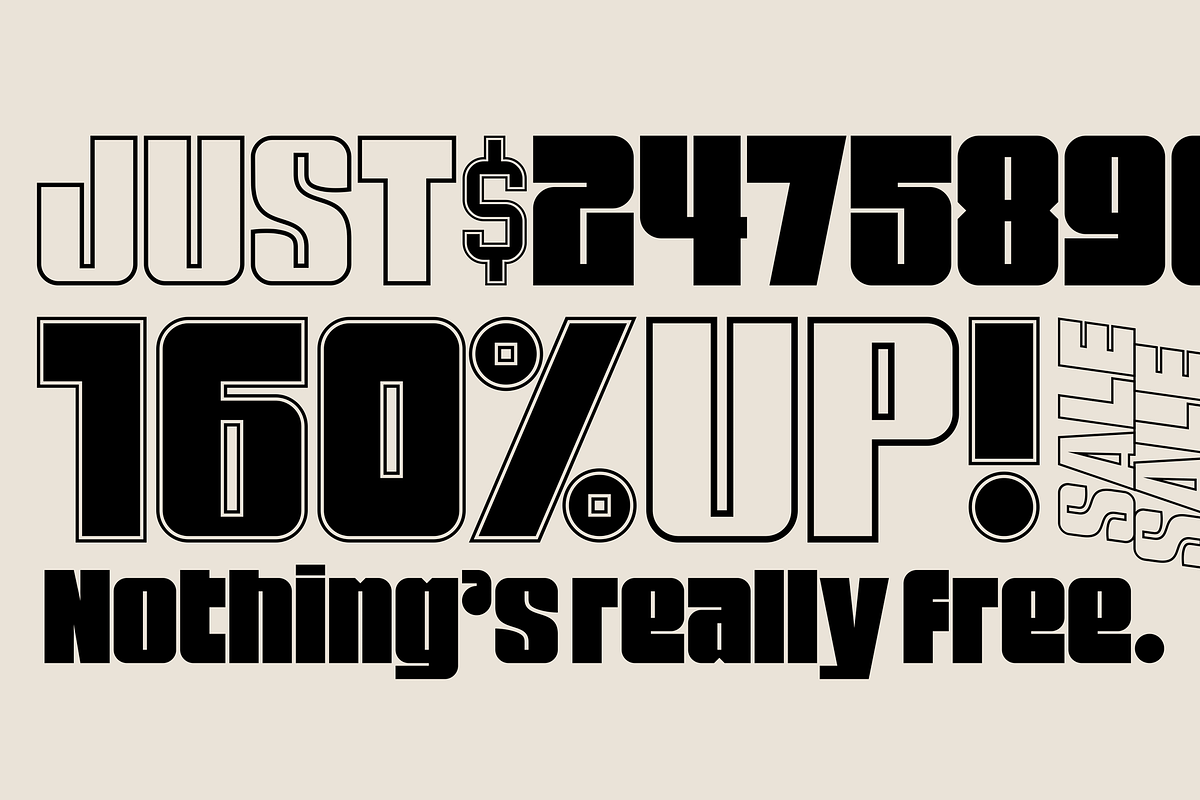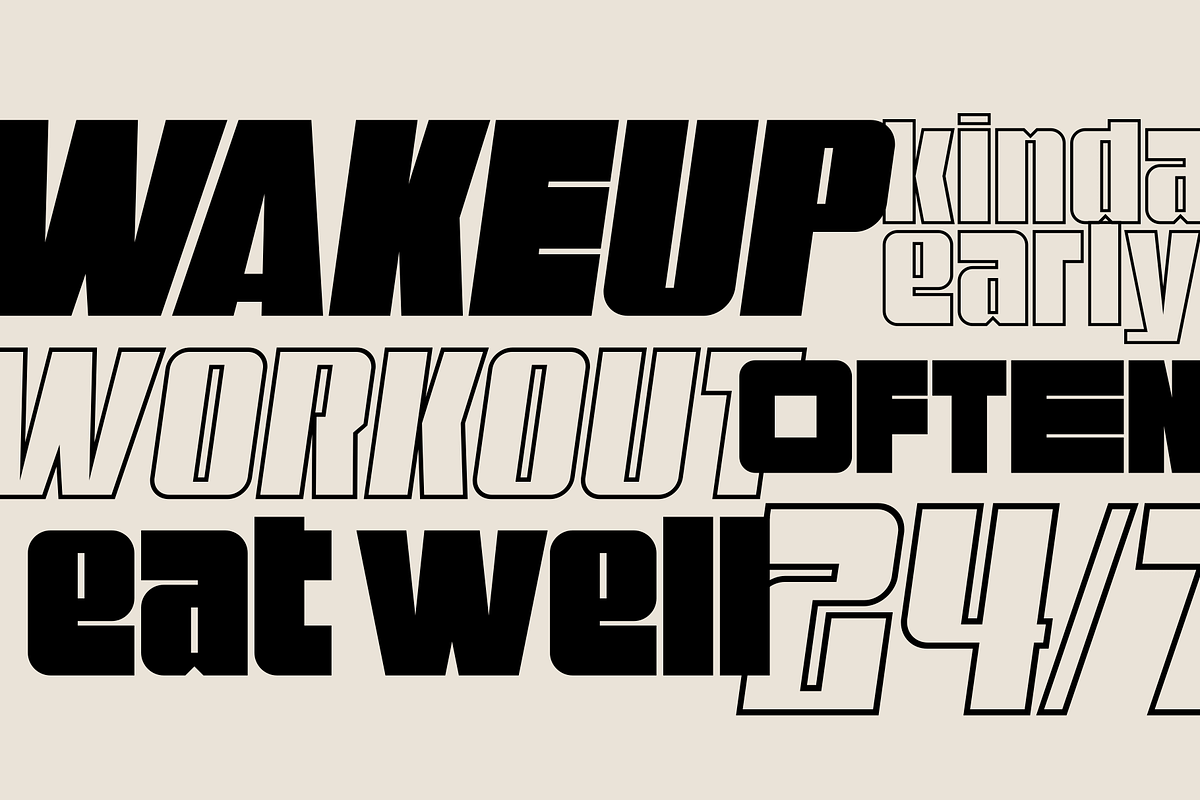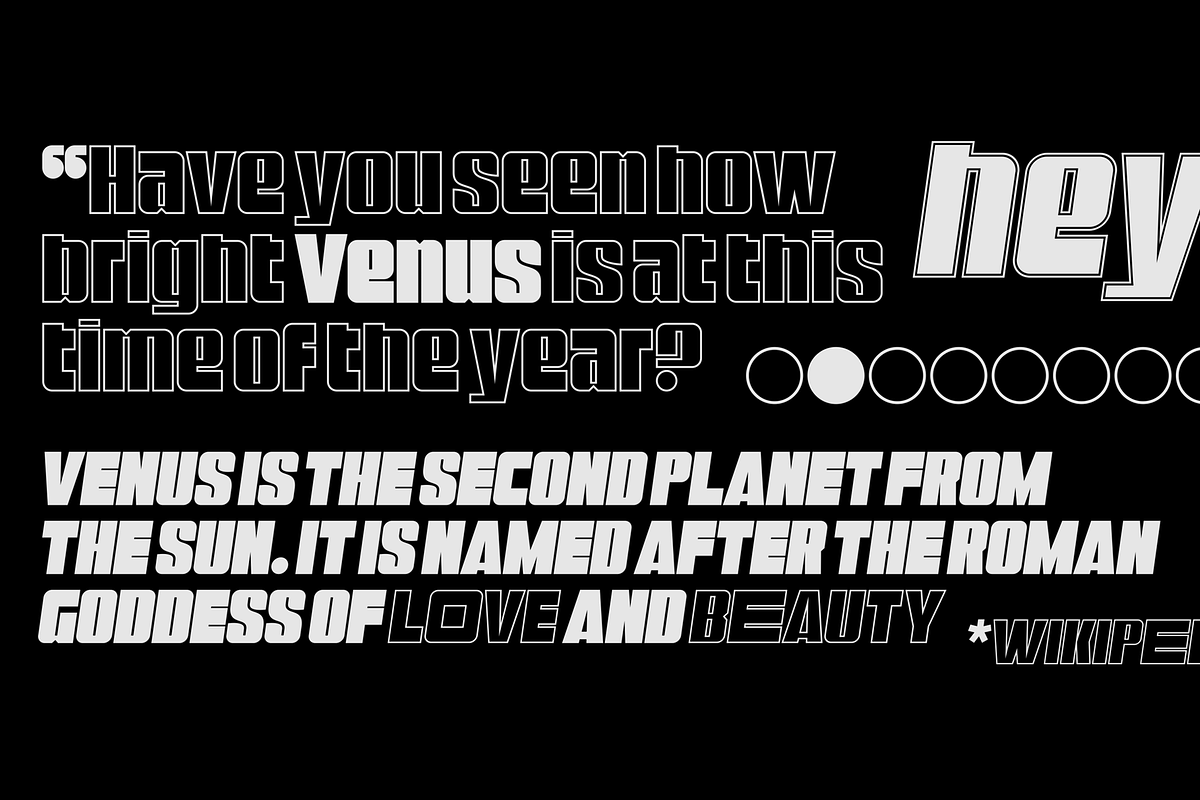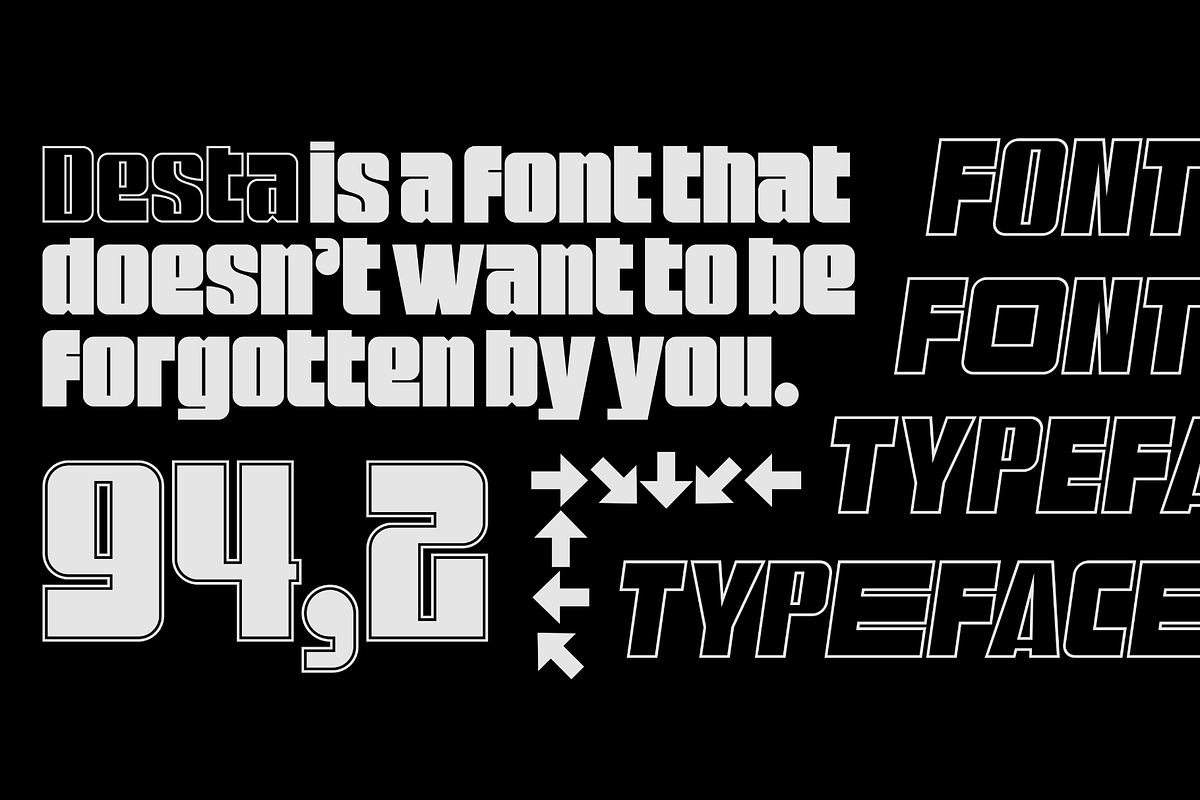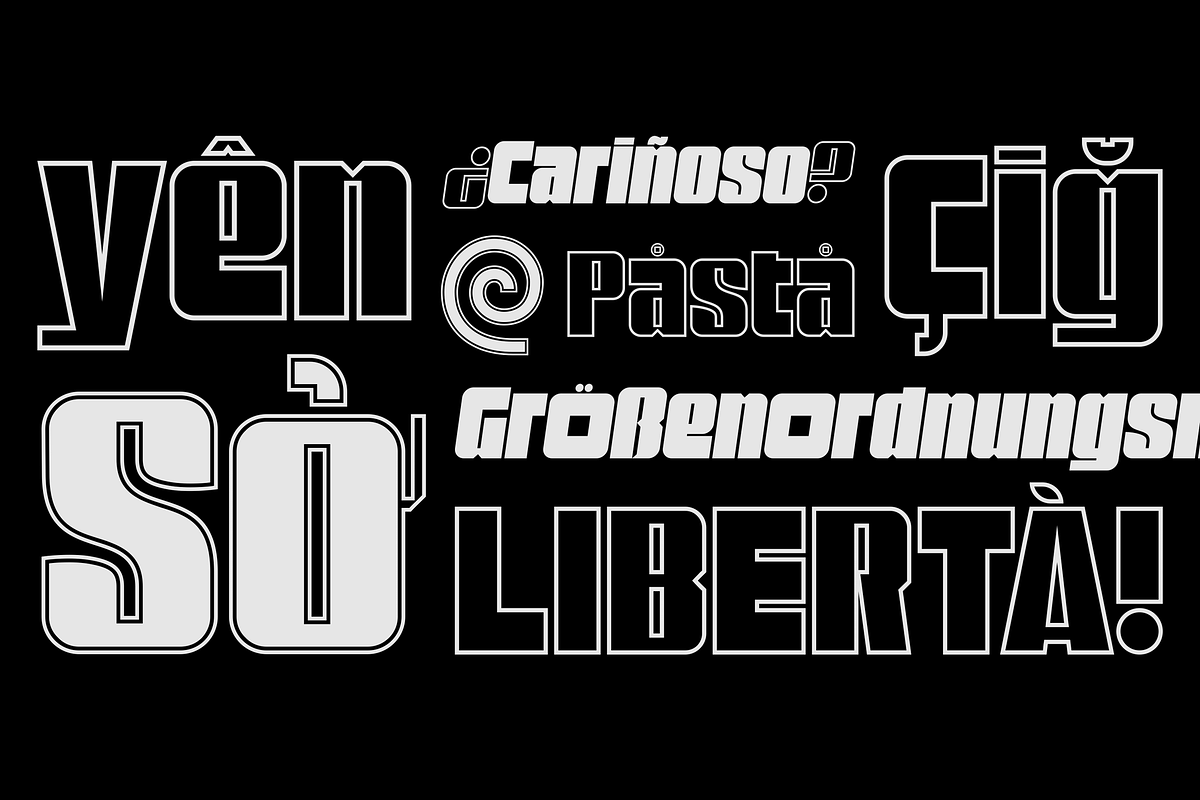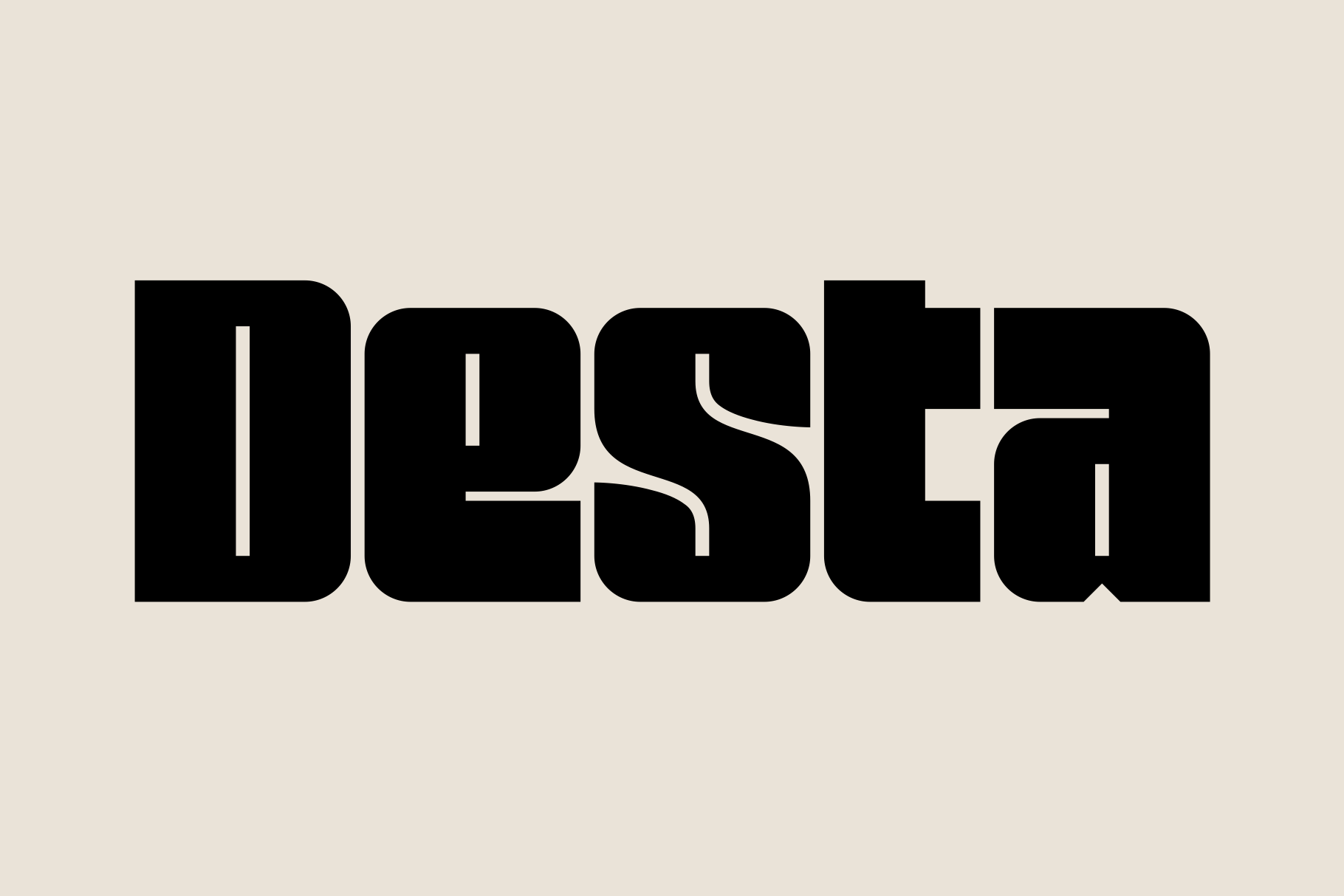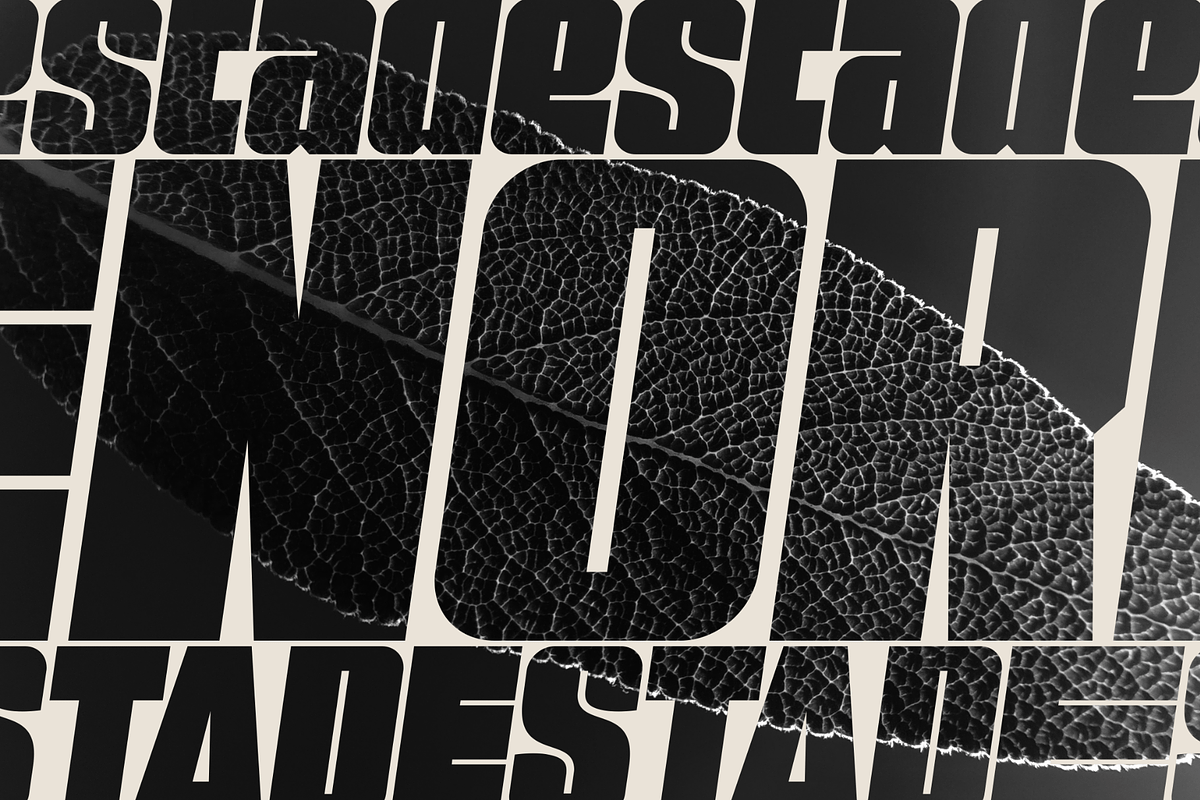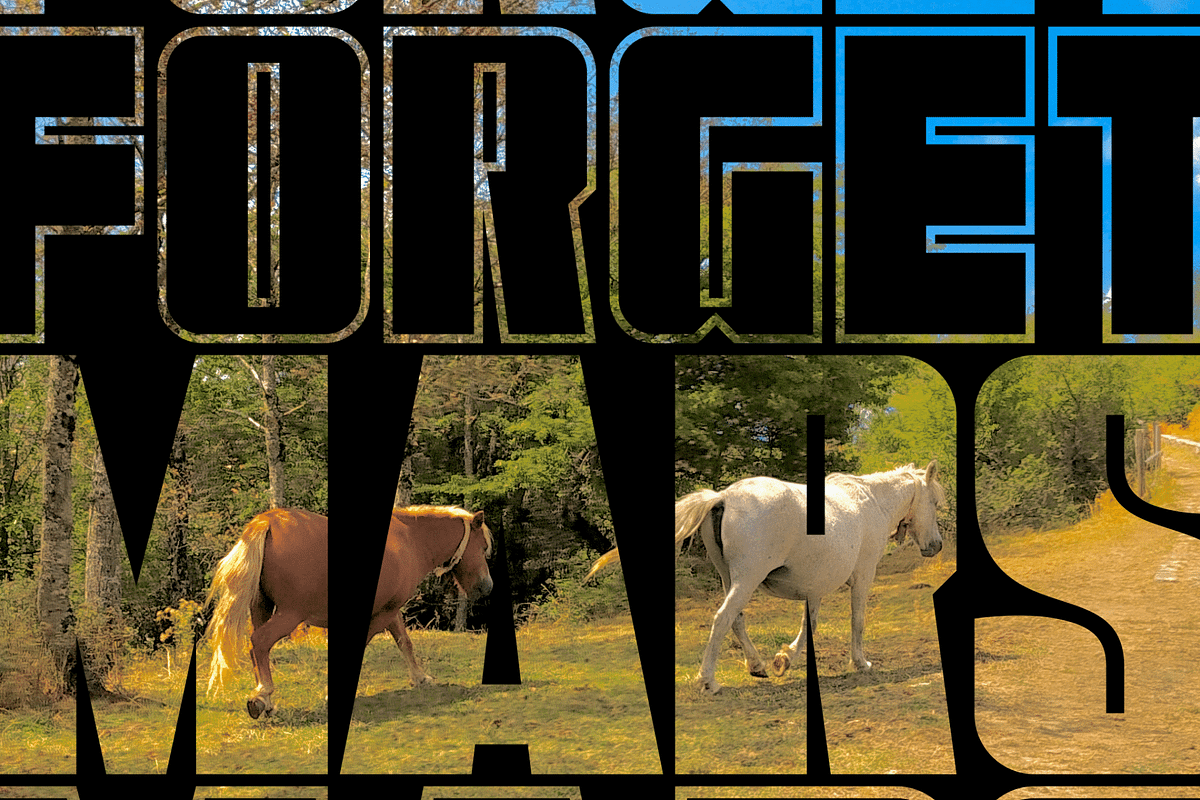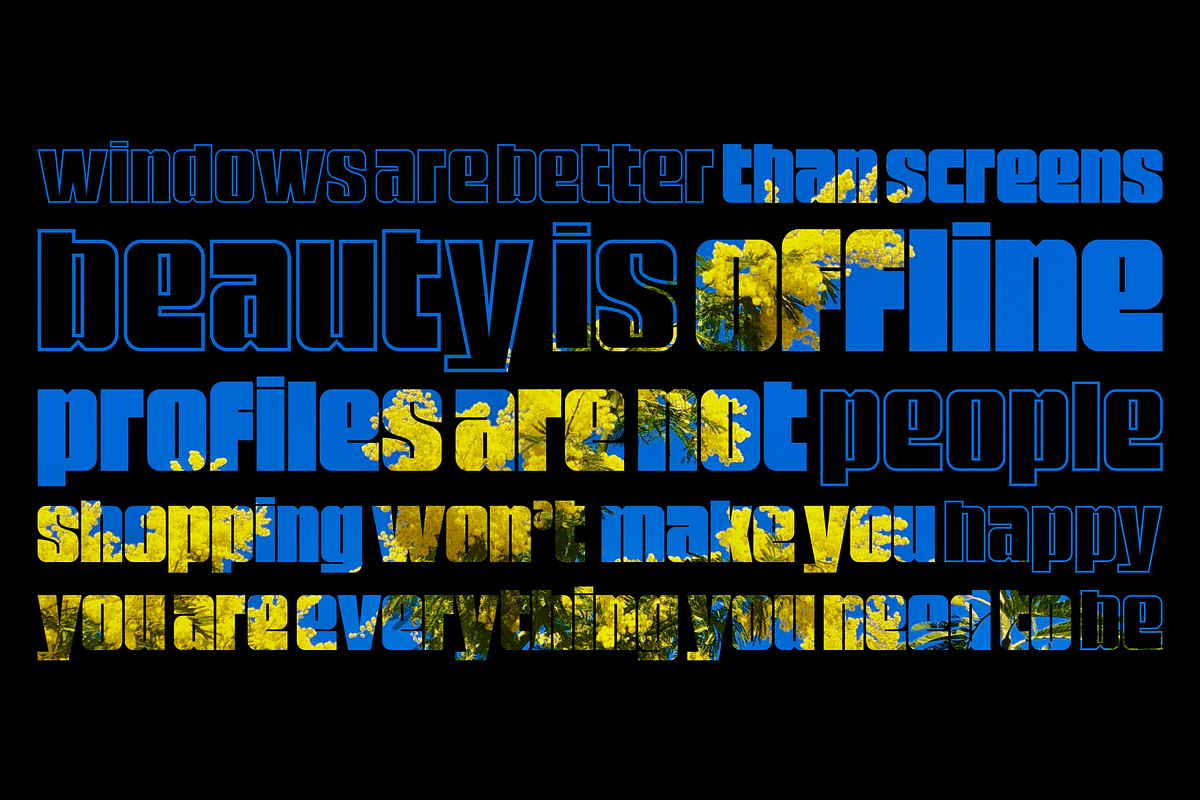
Desta – Font Family
Desta is a font family that doesn’t want to be forgotten. Use it on headings and any other large-sized messages you want to deliver with gravitas and style — then go further and highlight your words even more using the included alternative versions with square EO letters. Desta supports 118 languages, features a total of 506 glyphs and includes 18 styles.
• 118 Languages • 506 Glyphs • 18 Styles